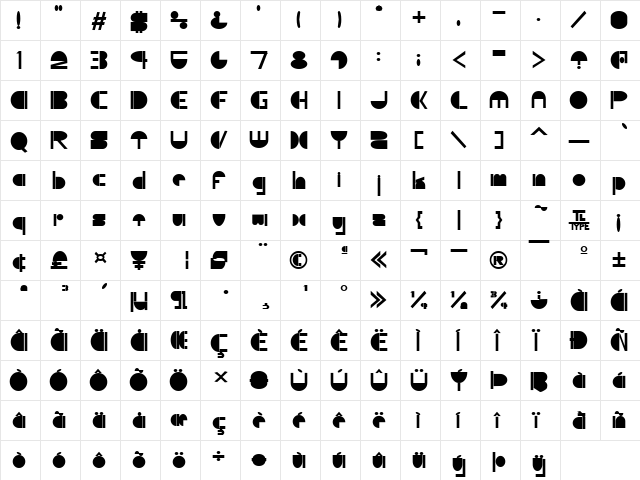
Shroom Regular Font Preview
Shroom Regular
Design Context for Shroom Typeface
Shroom is a composed and adaptable typeface that performs quietly and consistently across a wide range of design contexts.